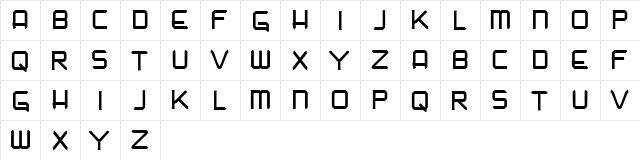
Nadir Regular Font Preview
Nadir Regular
Nadir Regular Font Details
Design Context for Nadir Typeface
Nadir offers clean, dependable letterforms without strong stylistic allegiance, making it a practical choice for designers who need flexibility.